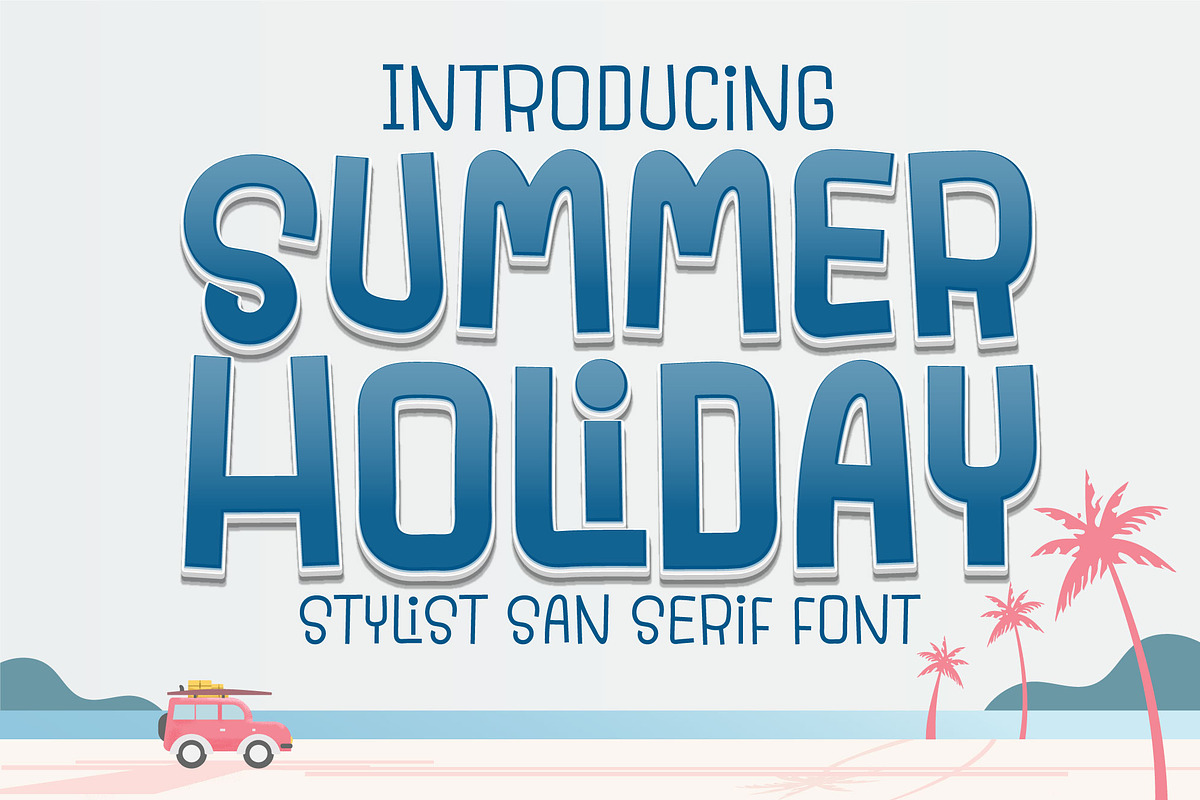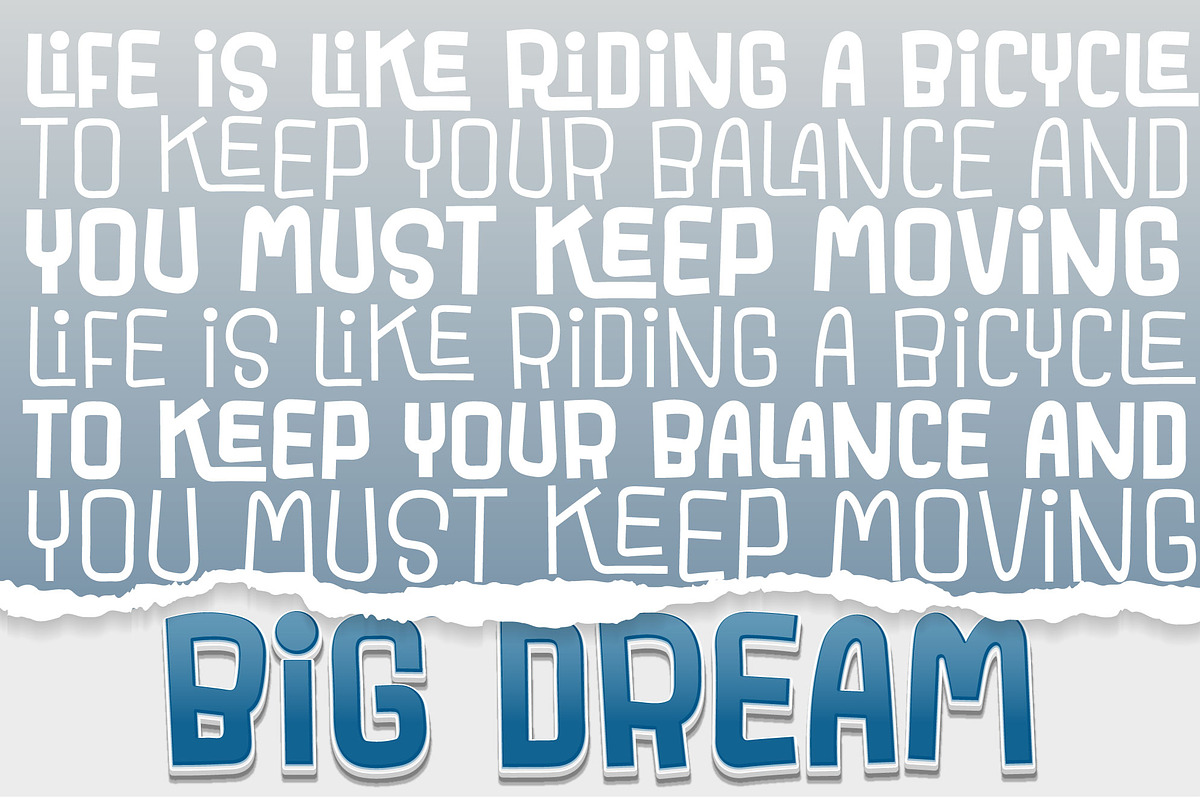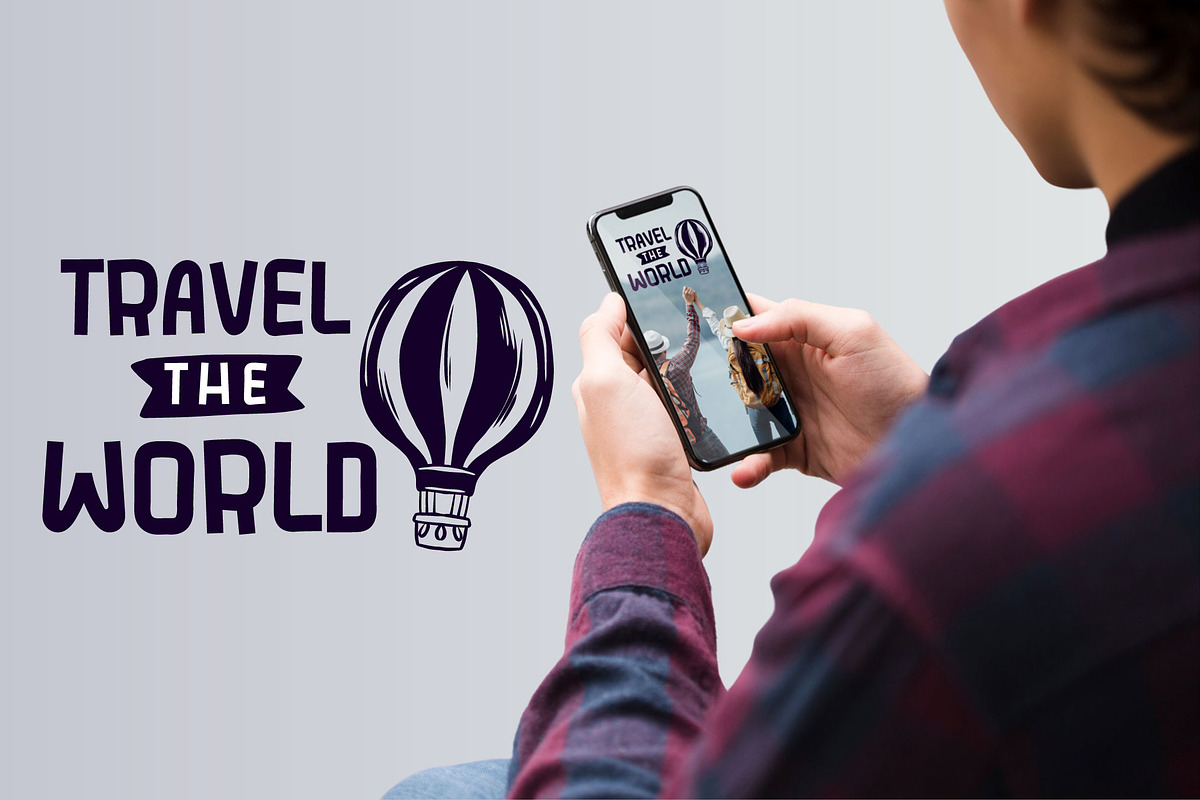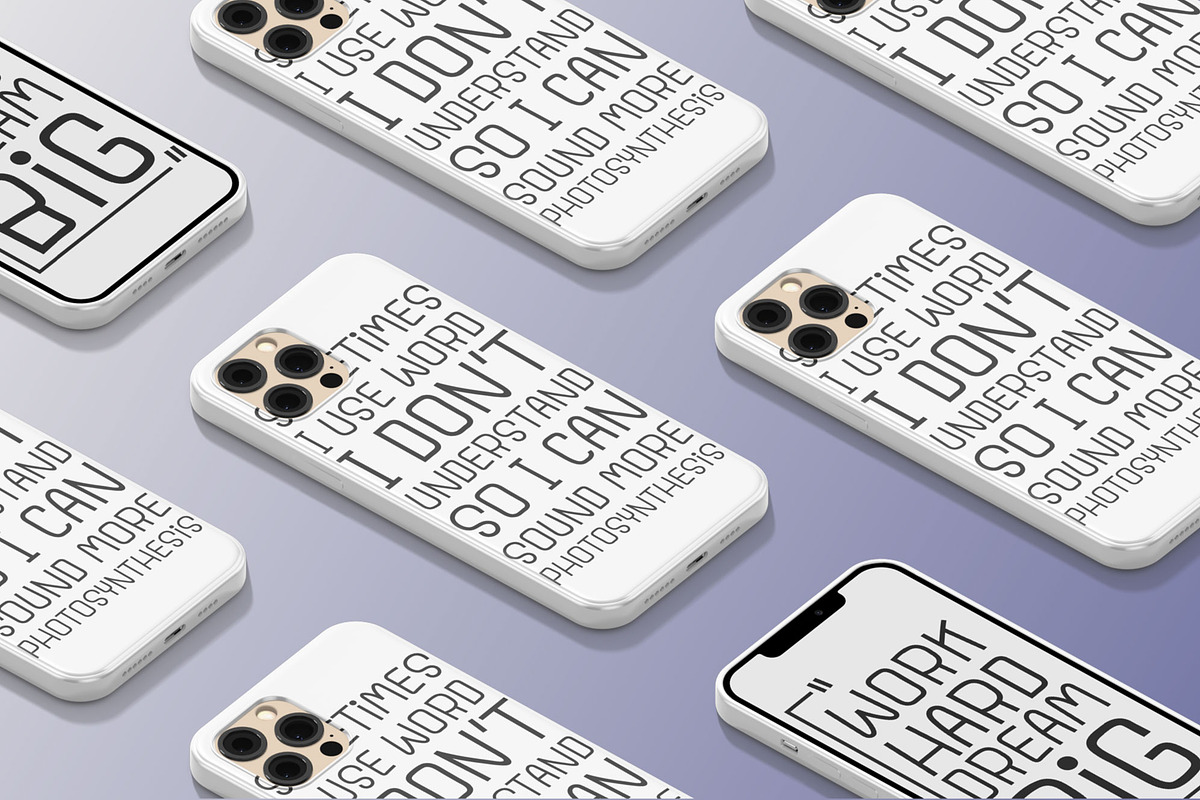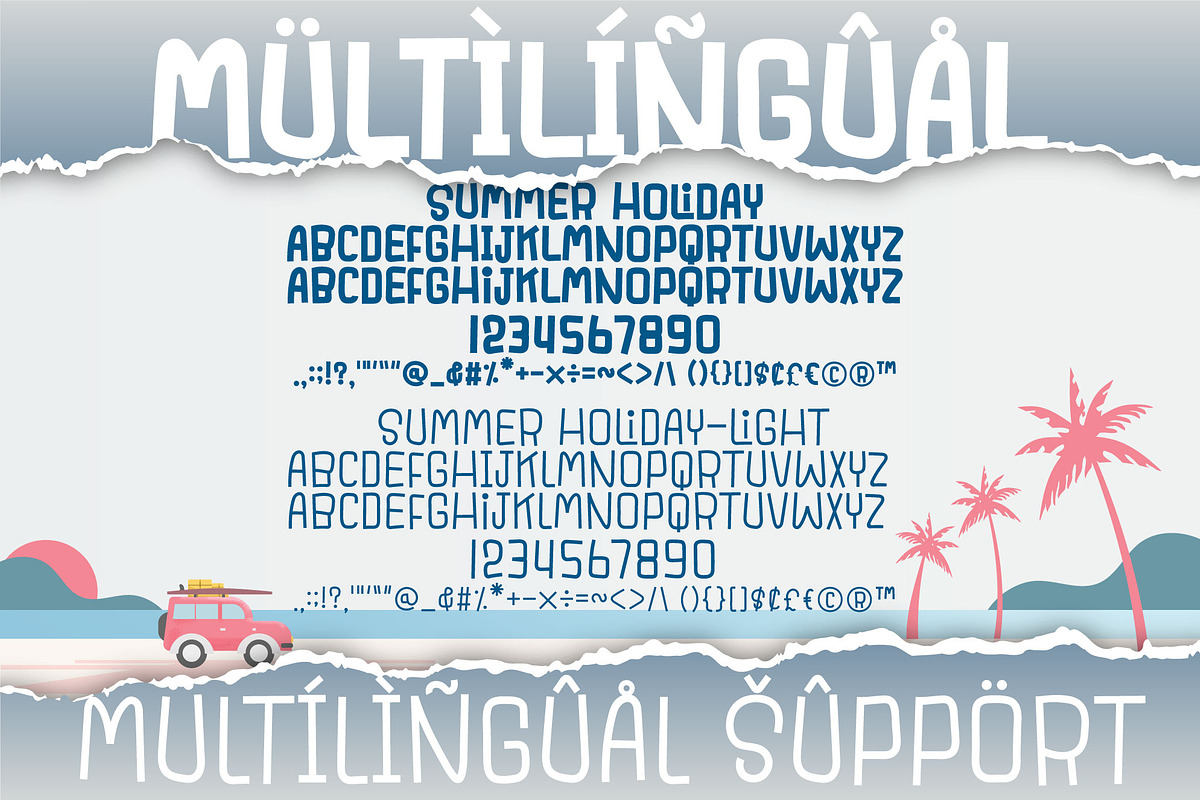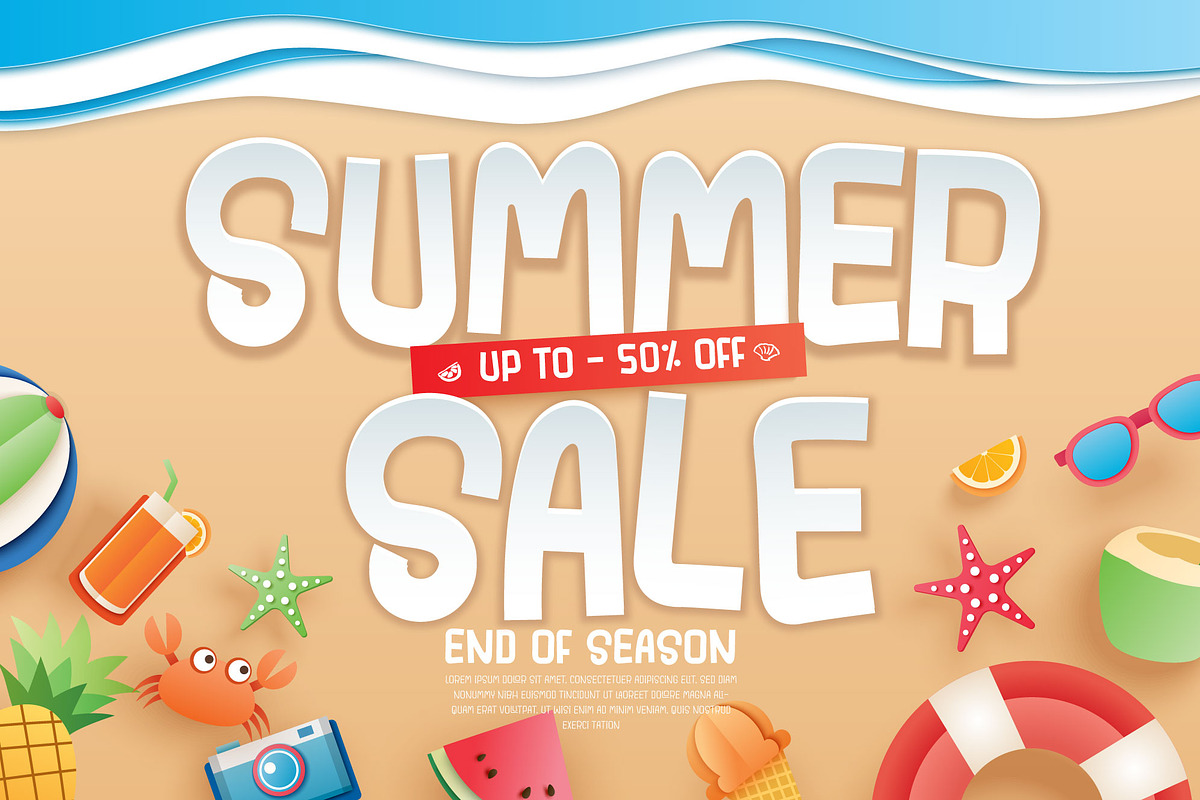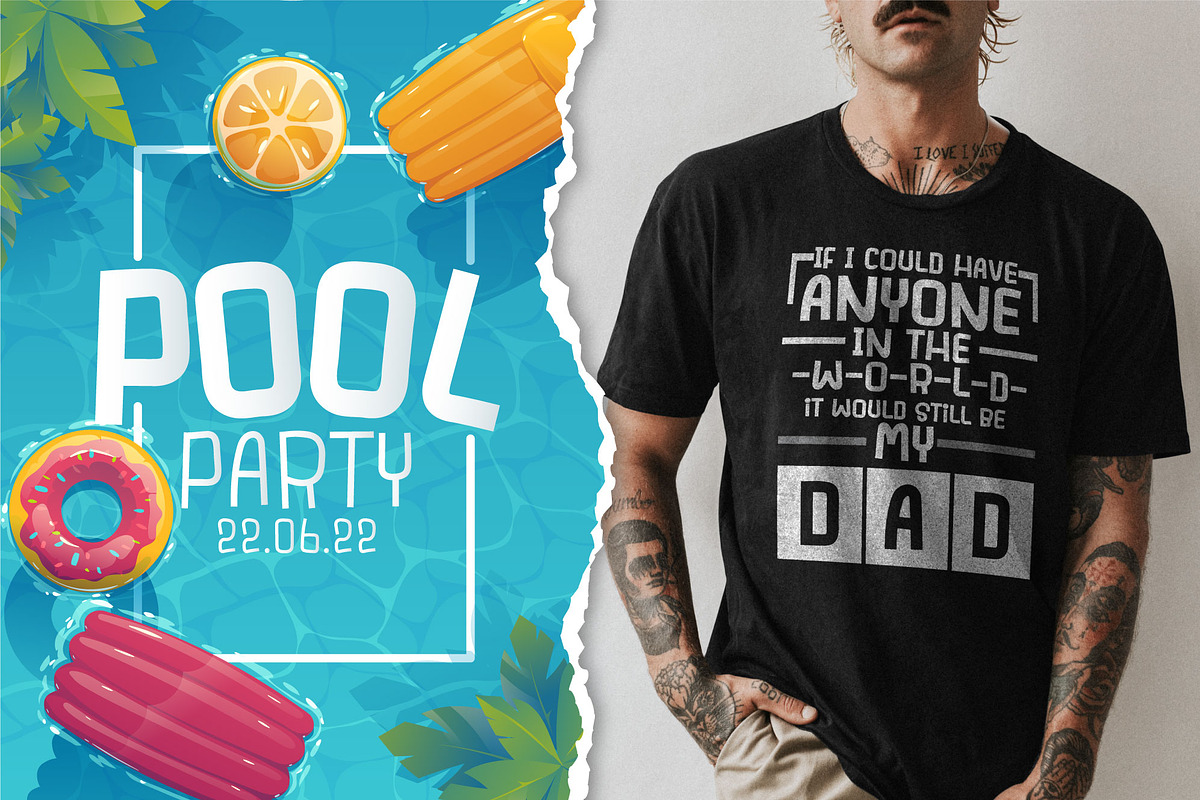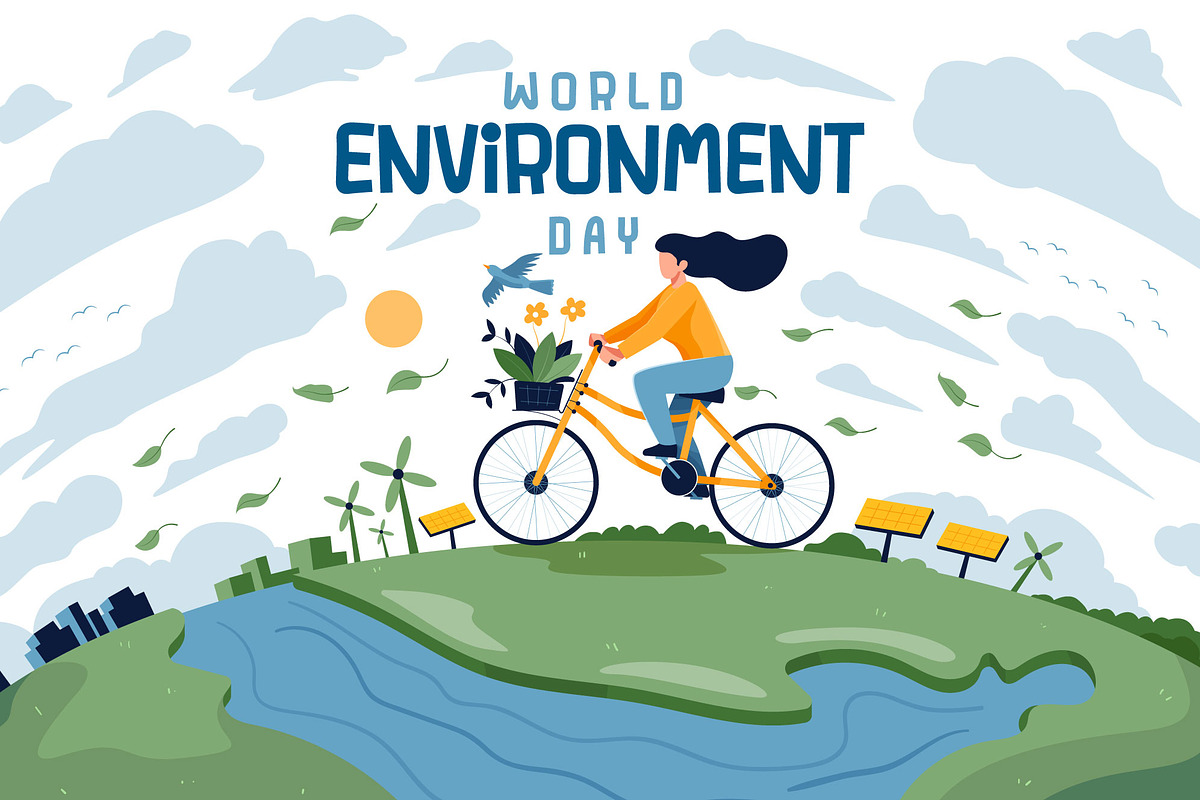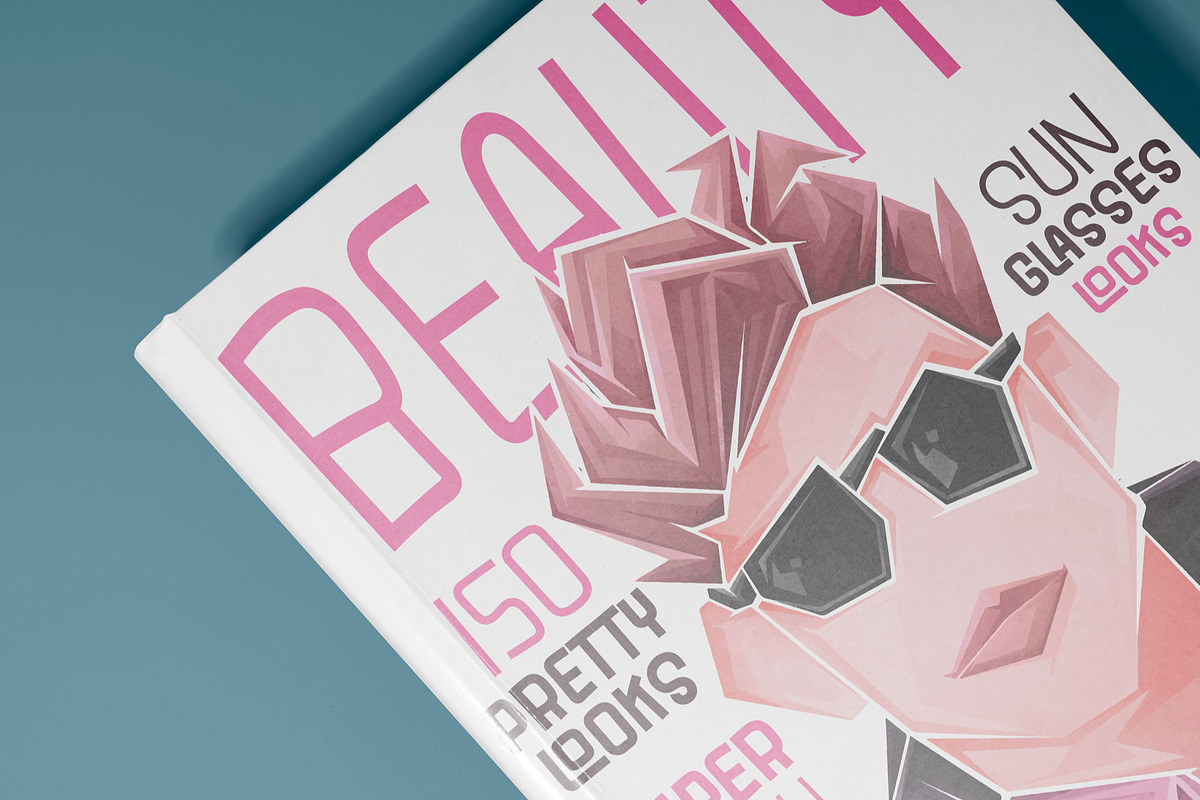
Summer Holiday Font
Summer Holiday is a bold and smart looking display font featuring the perfect amount of trendiness. Whether you’re using it for crafting, digital designing, presentations or greeting cards making, it’s perfect!